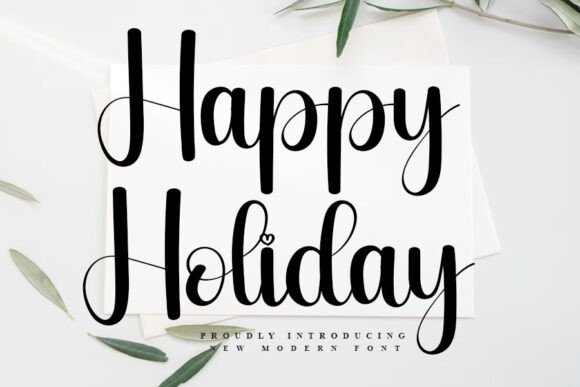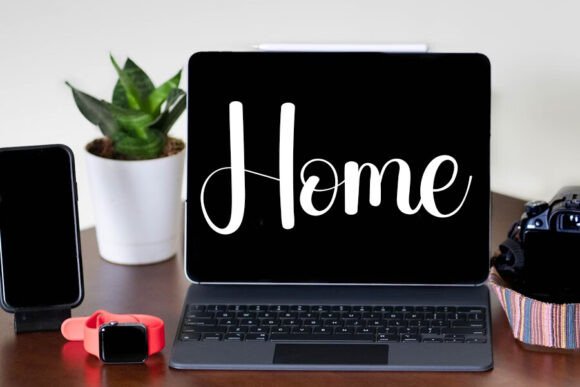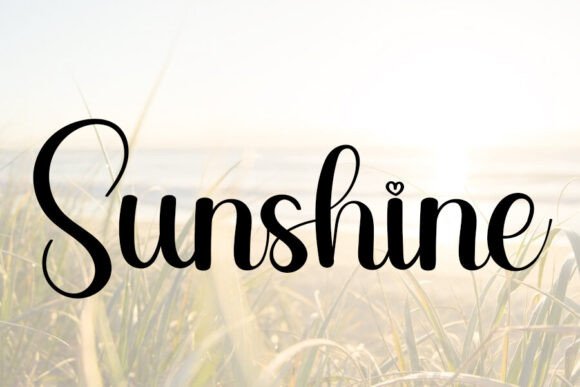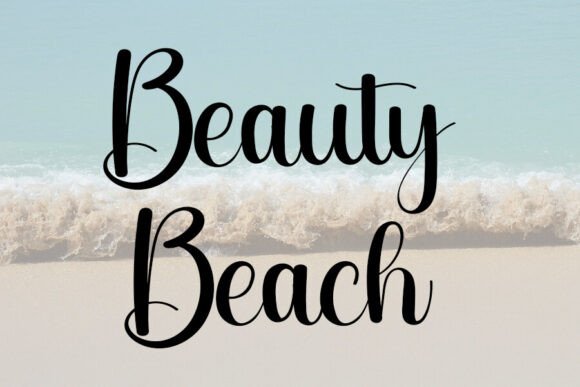
Happy Holiday Font
About the Happy Holiday Font
Elevate your designs with Happy Holiday Font, a font that combines sophistication with readability. Welcome to Happy Holiday, a captivating and artistically rendered font that can revolutionize your designs and captivate your spectators. This multifaceted typographical wonder breathes sweetness and grace, establishing itself as a superlative choice for an extensive array of design endeavours. Whether you’re fabricating standout YouTube banners, conceptualizing striking logo mockups for esteemed clients, fashioning sophisticated wedding invites, or developing singular ID cards, this font serves as an ideal artistic companion. But that’s not all – Happy Holiday is equally suitable for flyer designs and an array of craft projects. This font encapsulates simplicity and novelty, introducing an exclusive magnetism to your designs. Incorporating Happy Holiday into your business branding can propel its aesthetic allure, fostering advancement and prosperity. Venture into a realm of imagination with Happy Holiday, and create consistently powerful impressions!
Happy Holiday Font Usage Examples
Happy Holiday Font Example